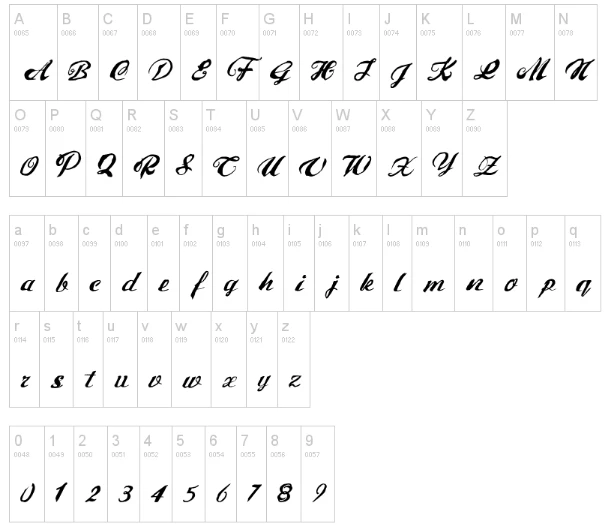
Today, I’m going to show you Precious Moments Font, a nice Script and Handwritten font that was updated on October 7, 2019. The Precious Moments Font is just for personal use! The font has it all, starting with capital, lowercase, Numeric, and some Special character and alternatives. Xerographer fonts created and shared the typeface. The Italic variant of the typeface looks better than other fonts. Using this typeface, you may create a cute personalized greeting card.
Precious Moments Font is great for logos, branding, invites, stationery, wedding designs, logos, business cards, covers, t-shirts, social media posts, and more. It will also be utilized to generate stunning images and text in a variety of colors and styles.
NamePrecious Moments Font
DesignerXerographer fonts